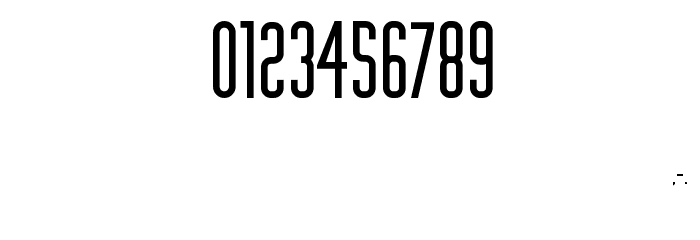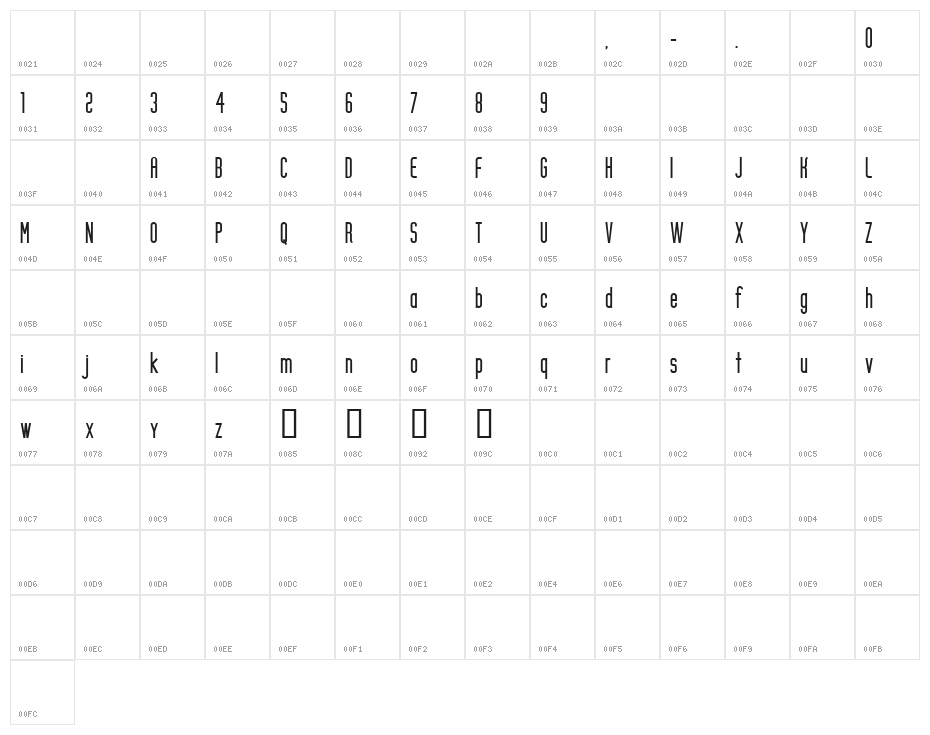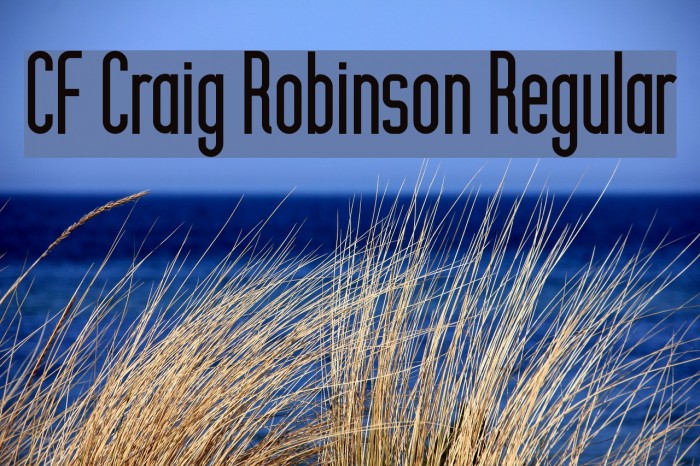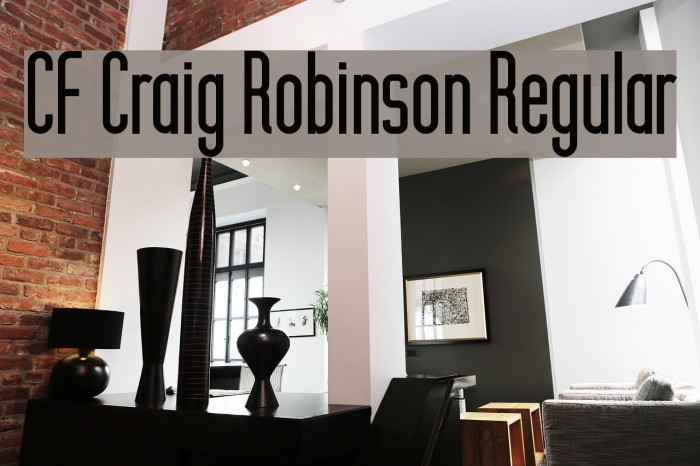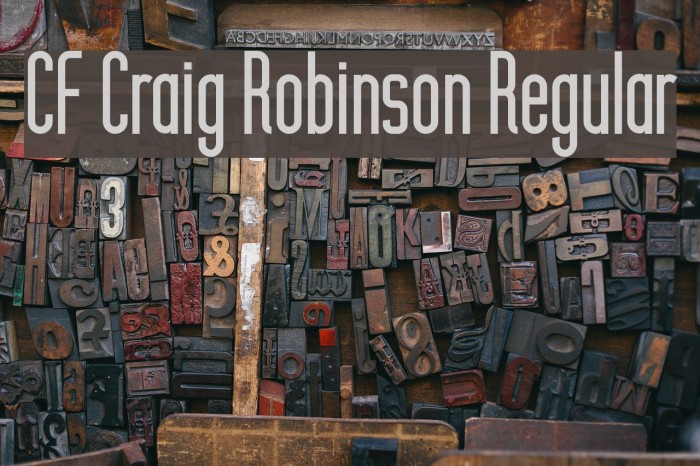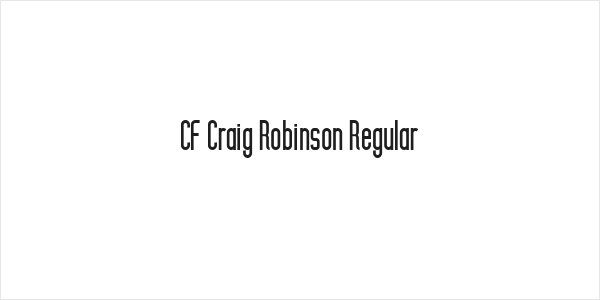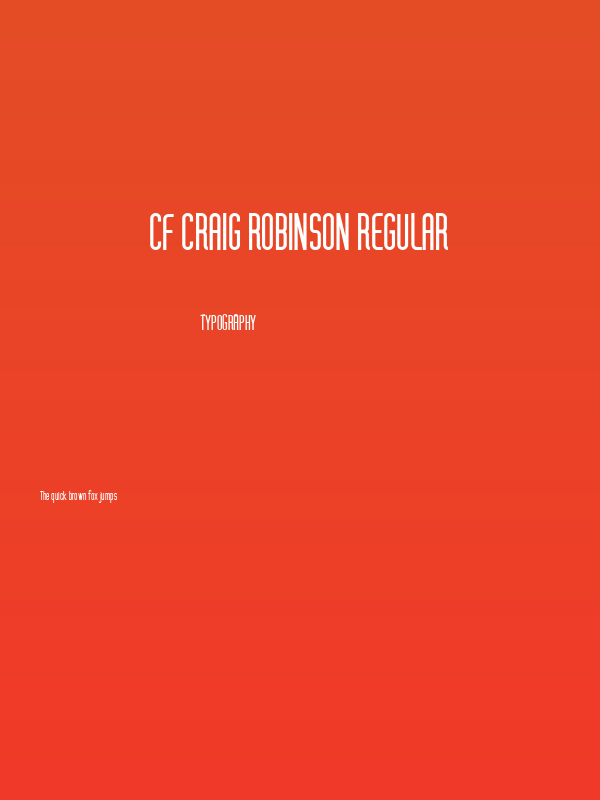
CF Craig Robinson Regular Font
CF Craig Robinson Regular Description
This font features a modern, clean design with tall, narrow characters that convey a sense of elegance and sophistication. The uppercase letters are uniform in height, while the lowercase letters maintain a consistent style that complements the overall aesthetic. The numerals are distinct and easy to read, making them suitable for various applications. The special characters are well-integrated, ensuring versatility in design projects. The font's structure is balanced, with a slight emphasis on verticality, giving it a sleek and contemporary appearance.
| Use Case | Headlines, Logos, Editorial Design |
| Proposed Projects | Ideal for branding, editorial design, posters, and digital media where a modern and sophisticated look is desired. |